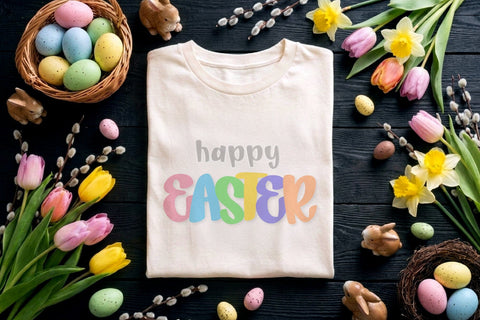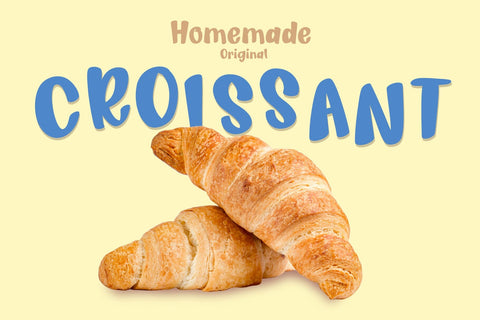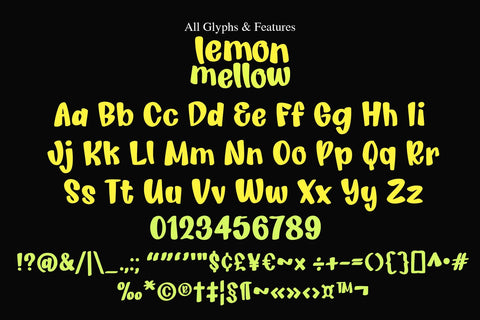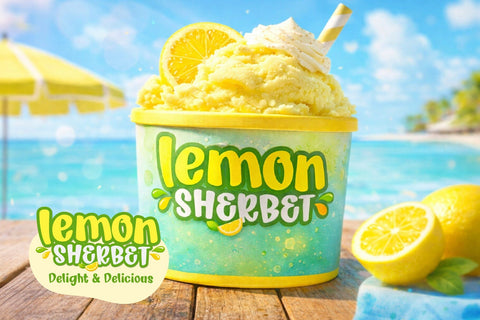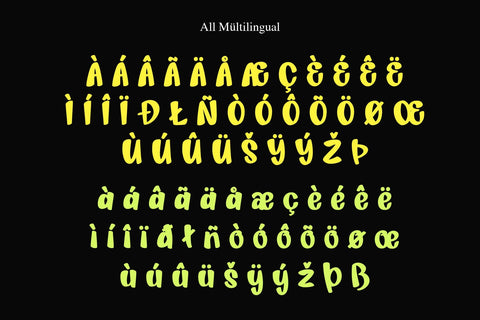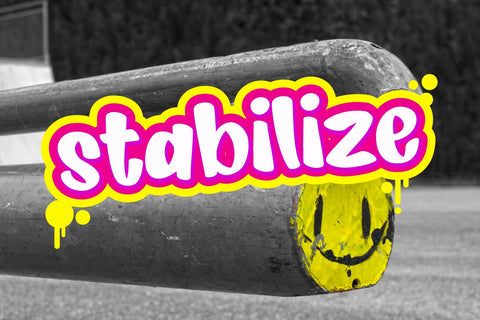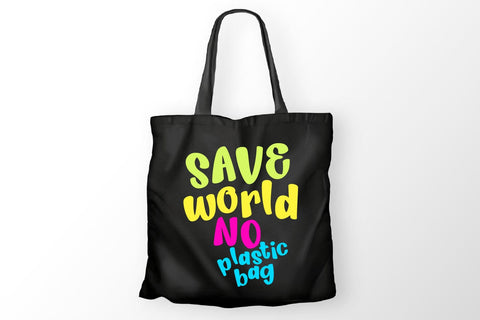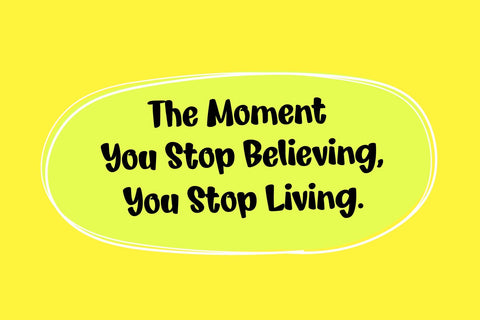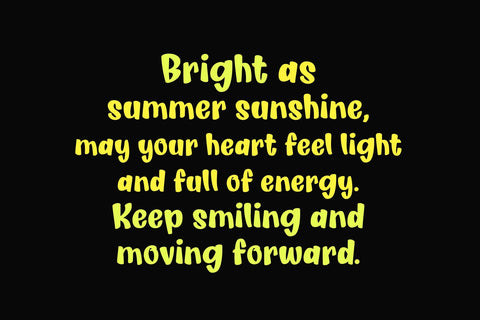
Lemon Mellow
Lemon Mellow is a fresh, playful, and juicy display font inspired by summer sunshine and sweet citrus vibes. With its bold rounded shapes and cheerful personality, this font is perfect for food branding, packaging, kids projects, stickers, Cricut designs, social media posts, and eye-catching quotes.
Designed to bring happiness and warmth into your creative projects, Lemon Mellow works beautifully for logos, lemonade stands, ice cream labels, mango juice packaging, bakery branding, and more.
- Full Uppercase & Lowercase
- Numbers & Punctuation
Add a splash of sweetness and make your designs shine!